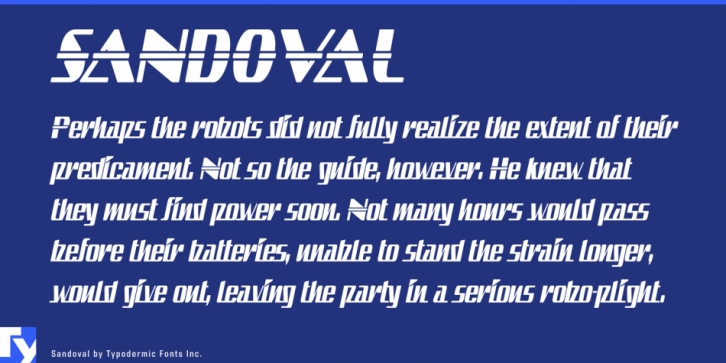
Sandoval is a retro font family. This typeface has two styles  and was published by Typodermic Fonts Inc.
Sandoval is a self-propelled commercial/industrial headline thumper.